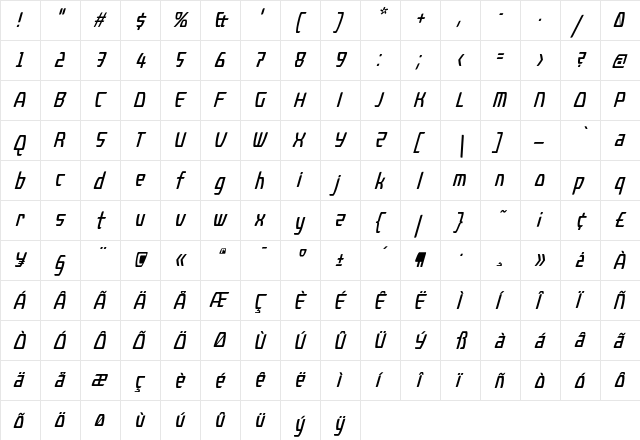
Kompressor Italic
Design Context for Kompressor Typeface
Kompressor offers clean, dependable letterforms without strong stylistic allegiance, making it a practical choice for designers who need flexibility. The slanted form adds forward momentum and visual energy.